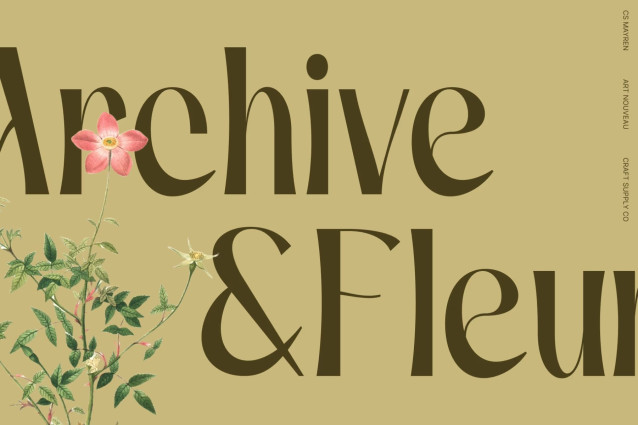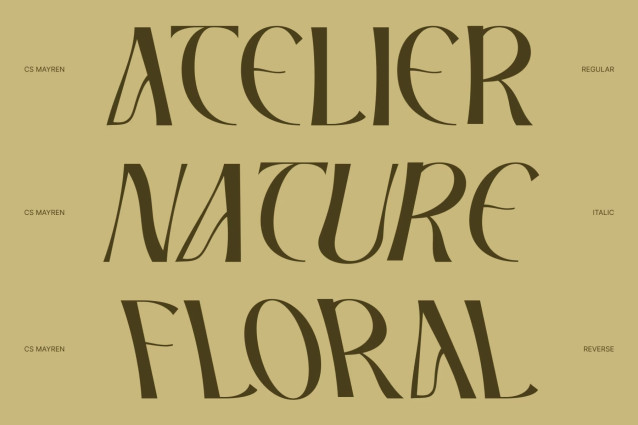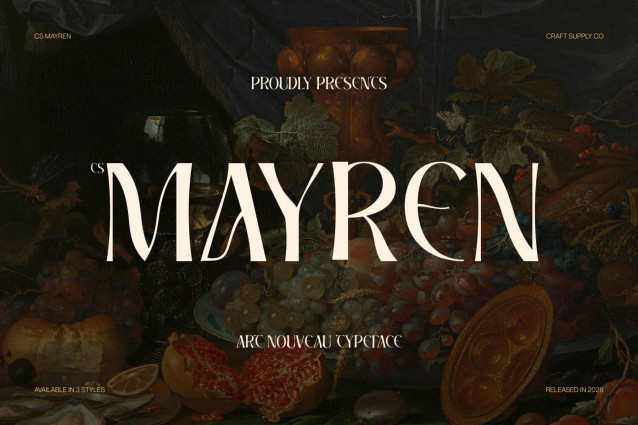
CS Mayren – Art Nouveau Font
CS Mayren – Modern Sans Serif with Art Nouveau Elegance
Modern Sans Serif with Artistic Influence
This is a modern sans serif font that blends contemporary simplicity with the graceful charm of Art Nouveau. Its clean construction keeps the design fresh and current, while subtle artistic influences give it a refined and stylish personality. The result is a typeface that feels elegant, trendy, and visually captivating.
Art Nouveau Curves with Organic Flow
The defining feature of this font lies in its smooth curves and organic flow inspired by Art Nouveau design. These gentle, flowing shapes bring a sense of movement and harmony to every letterform, creating typography that feels graceful and expressive without losing clarity. The organic rhythm adds warmth and sophistication to any composition.
Elegant Yet Trend-Forward Style
This font balances elegance with a fashion-forward attitude, making it perfect for modern creative projects. Its stylish forms communicate luxury and refinement while maintaining a contemporary edge that feels fresh and relevant. This combination allows the font to stand out in high-end visual environments.